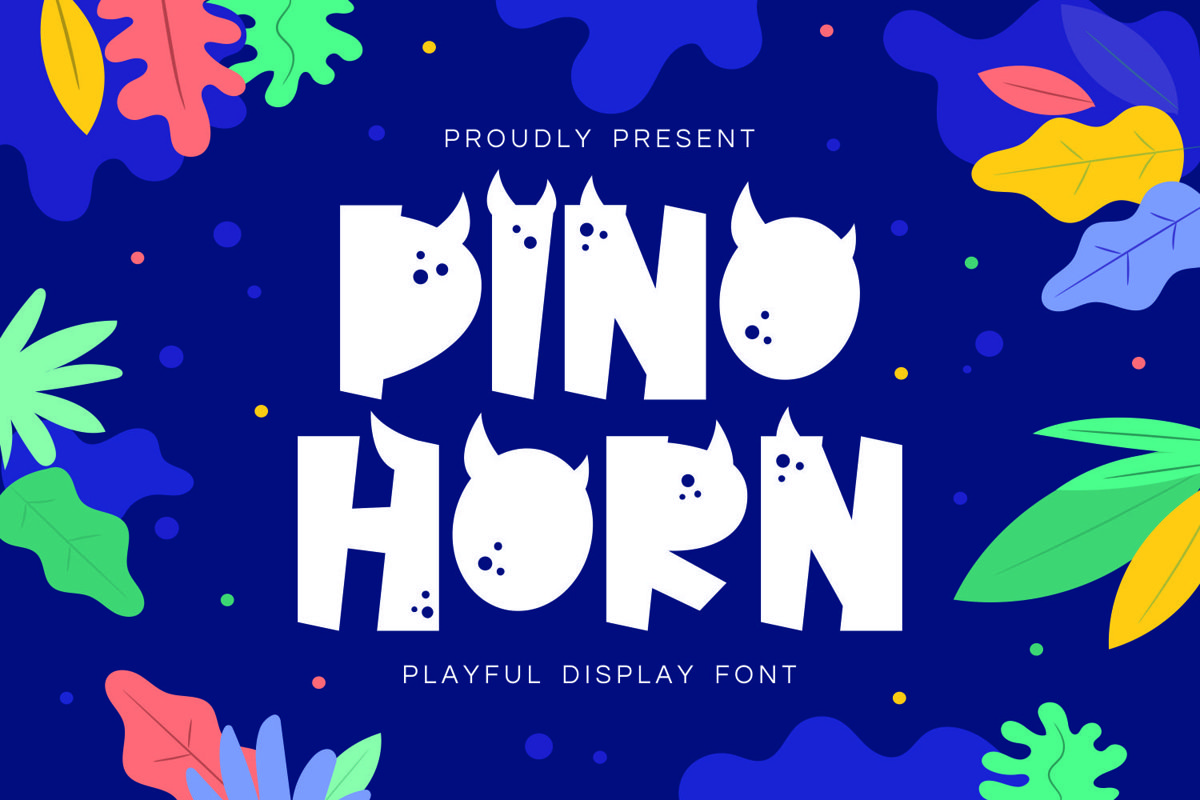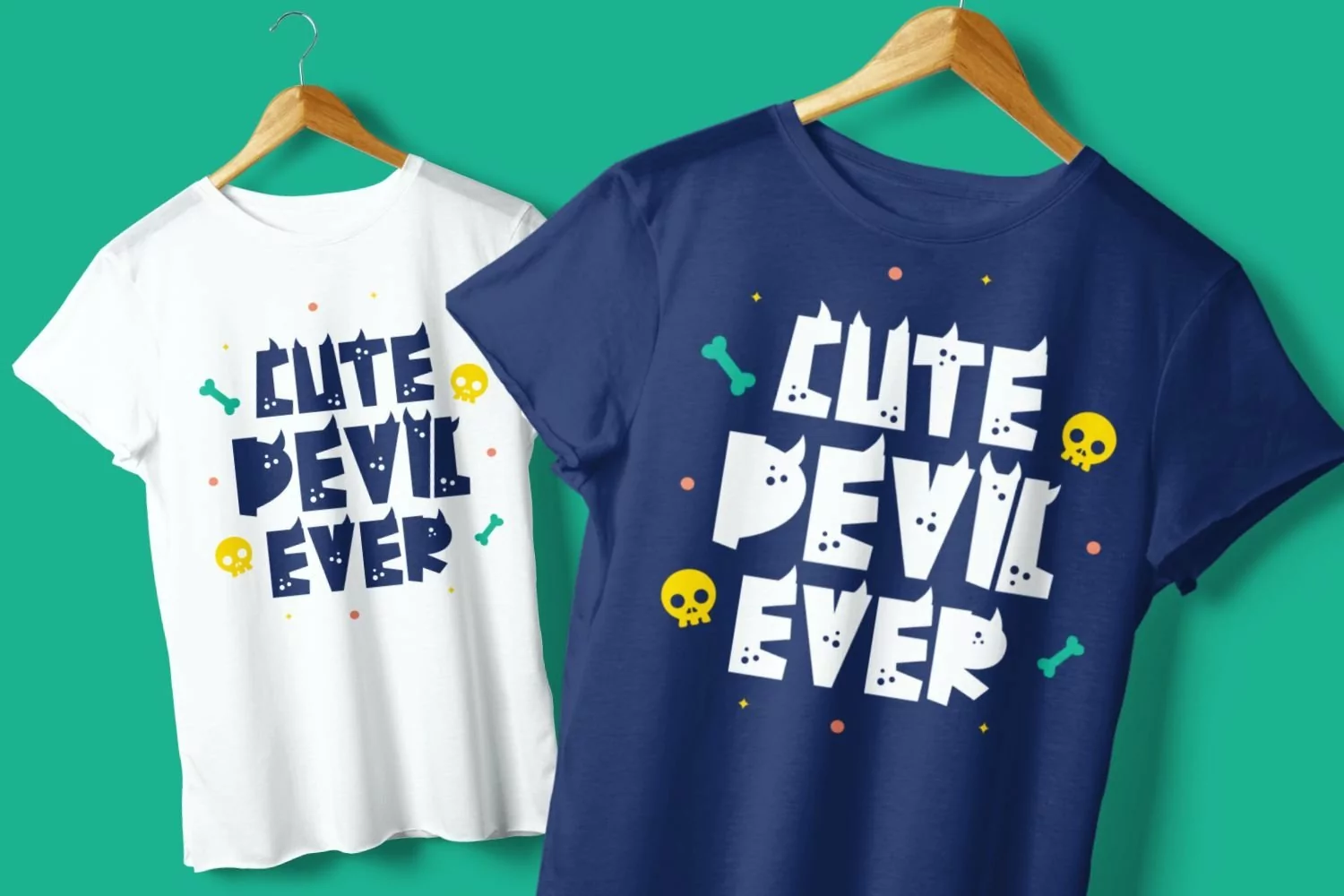
Dinohorn is san serif display come with playful themes. We wanted to create the most unique character. It matches applies in some designs such as the logotype, brand, packaging, quotes, cute poster, kids shirt, cover book, birthday invitation and more custom design. The features uppercase, lowercase, numeral, punctuation & symbol, multilingual support.